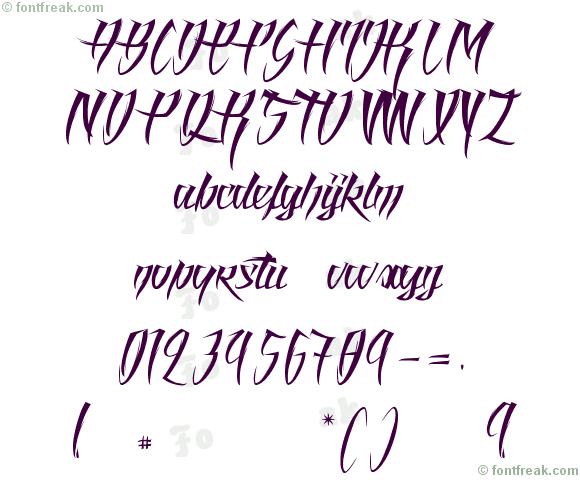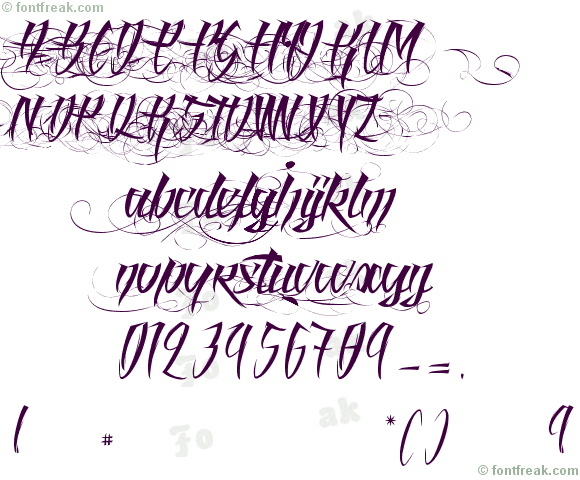
Angel of Blood Light
Angel of Blood
About Angel of Blood Light
The Angel of Blood Light font by Maelle.K is a captivating decorative typeface that blends elegance with a touch of drama. This freeware font features a unique script style characterized by its flowing, cursive lines and artistic flair. The stroke weight varies, creating a beautiful contrast that draws the eye, while the spacing between letters is thoughtfully designed to enhance readability without losing its enchanting aesthetic. Delicate decorative elements, such as sweeping tails and sharp angles, add an ethereal quality, making this font a standout choice for various design purposes.
Ideal for wedding invitations, the Angel of Blood Light font brings a romantic and whimsical touch to any occasion. Its artistic nature also makes it perfect for movie posters, particularly in genres that explore fantasy or the supernatural. Restaurant menus featuring this font can evoke a sense of elegance and intrigue, appealing to diners seeking a unique dining experience. Additionally, content creators looking to enhance their branding or social media graphics will find this font invaluable for creating visually striking posts and promotional materials.
The target audience for the Angel of Blood Light font includes graphic designers, small business owners, and content creators who are looking to infuse their work with a sense of creativity and style. This font is especially appealing to those in the wedding industry or anyone involved in artistic projects that demand a strong visual impact.
What truly sets the Angel of Blood Light font apart is its ability to balance beauty and readability, making it a versatile choice for various applications. Whether used in a formal invitation or a bold promotional piece, this font is sure to leave a lasting impression. Don’t miss out on the opportunity to enhance your designs; the Angel of Blood Light font free download is available now for those ready to elevate their creative projects.